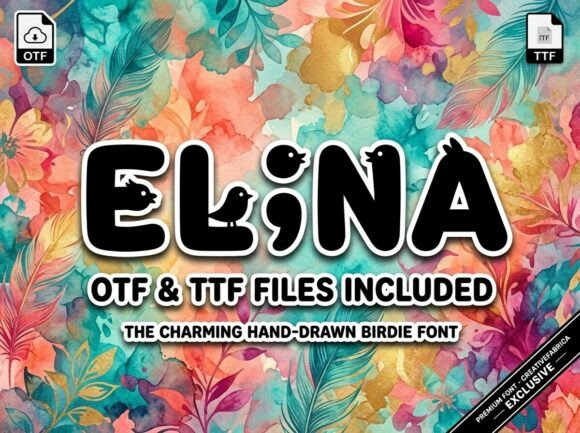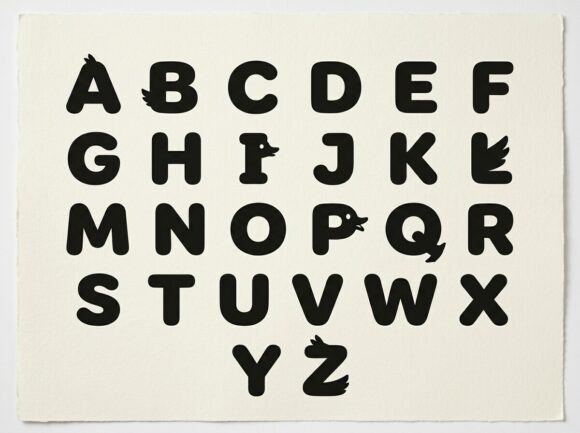
Take Flight with Elina Font: Elevate Your Creative Projects with Whimsy and Charm
Are you looking for a font that can add a touch of magic to your creative projects? Look no further than Elina, a whimsical display font that’s bursting with life. This bold, chunky typeface is perfect for designers and crafters who want to bring a sense of wonder and imagination to their work. With its heavy letterforms artfully transformed into charming characters, Elina is sure to make your headlines stand out with a legendary and unforgettable personality.
What Makes Elina Font So Special?
Elina font is not just any ordinary font. Its thick, rounded silhouette and rhythmic, playful energy make it an extraordinary choice for a variety of creative projects. The font features charming characters, complete with soaring wings and endearing duck-like faces, that are sure to capture the hearts of your audience. Whether you’re working on children’s event branding, toy packaging, nursery decor, or engaging social media content, Elina font is the perfect choice.
As a designer or crafter, you’re always on the lookout for fonts that can help you create unique and engaging visual identities. Elina font delivers a sense of handcrafted joy and imaginative storytelling to your projects, making it an ideal choice for anyone who wants to add a personal touch to their work. With Elina, you can create headlines that are not only bold and eye-catching but also full of personality and whimsy.
Use Elina Font for:
- Children’s Event Branding: Create invitations, posters, and other promotional materials that will delight kids and parents alike with Elina font’s playful and imaginative vibe.
- Toy Packaging: Add a touch of magic to your toy packaging with Elina font’s charming characters and whimsical design.
- Nursery Decor: Create adorable nursery decor, such as wall art and signs, with Elina font’s sweet and playful style.
- Social Media Content: Make your social media content stand out with Elina font’s bold and eye-catching headlines that are sure to grab attention.
Why Choose Elina Font?
So, why choose Elina font for your creative projects? Here are just a few reasons:
- Unique and Whimsical Design: Elina font’s unique and whimsical design is sure to set your projects apart from the rest.
- Highly Versatile: Elina font is highly versatile and can be used for a wide range of creative projects, from children’s event branding to social media content.
- Easy to Read: Despite its bold and chunky design, Elina font is easy to read and understand, making it perfect for headlines and titles.
- Handcrafted Feel: Elina font delivers a sense of handcrafted joy and imaginative storytelling to your projects, making it an ideal choice for designers and crafters who want to add a personal touch to their work.
Get Ready to Take Flight with Elina Font!
If you’re ready to add a touch of magic to your creative projects, look no further than Elina font. With its whimsical design, bold and chunky style, and highly versatile nature, Elina font is the perfect choice for designers and crafters who want to bring a sense of wonder and imagination to their work. So why wait? Take flight with Elina font today and see the difference it can make in your creative projects!
In conclusion, Elina font is a unique and whimsical display font that’s perfect for designers and crafters who want to add a touch of magic to their creative projects. Its bold and chunky design, charming characters, and highly versatile nature make it an ideal choice for a wide range of projects, from children’s event branding to social media content. So if you’re looking for a font that can help you create engaging and imaginative visual identities, look no further than Elina font.